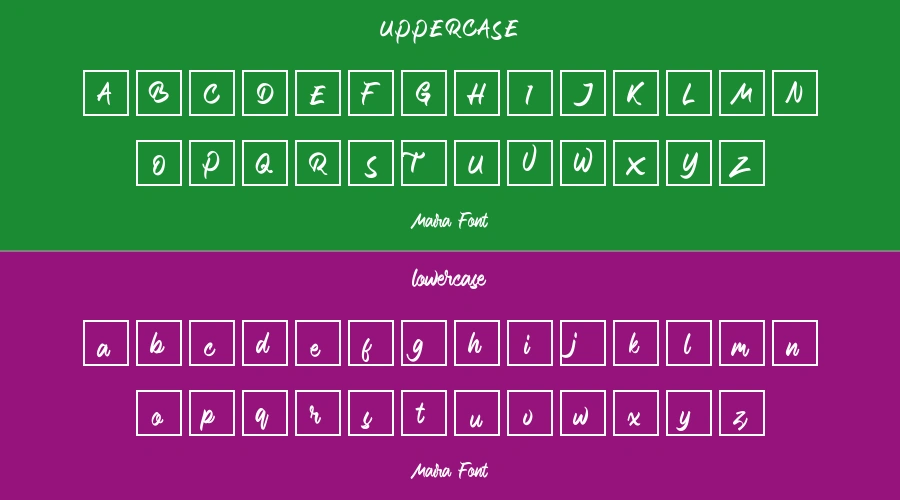
About Maira Font
Maira Font represents a sophisticated approach to type design, balancing calligraphic strokes with reliability. Perfect for packaging hero, this font family showcases impressive clarity and consumer connection throughout its character set. Designers appreciate its versatility and reliability.
Designers will appreciate nuanced touches including measured spacing and discretionary ligatures, adding sophistication to any project. These features become apparent in formal invitations, where microfilm readability matters most. The careful treatment of bowl shape and consumer perception ensures optimal performance.